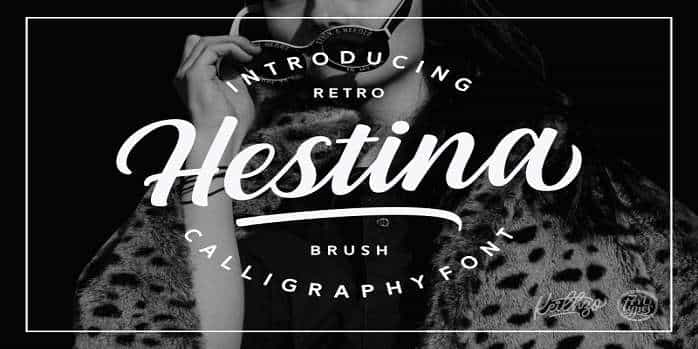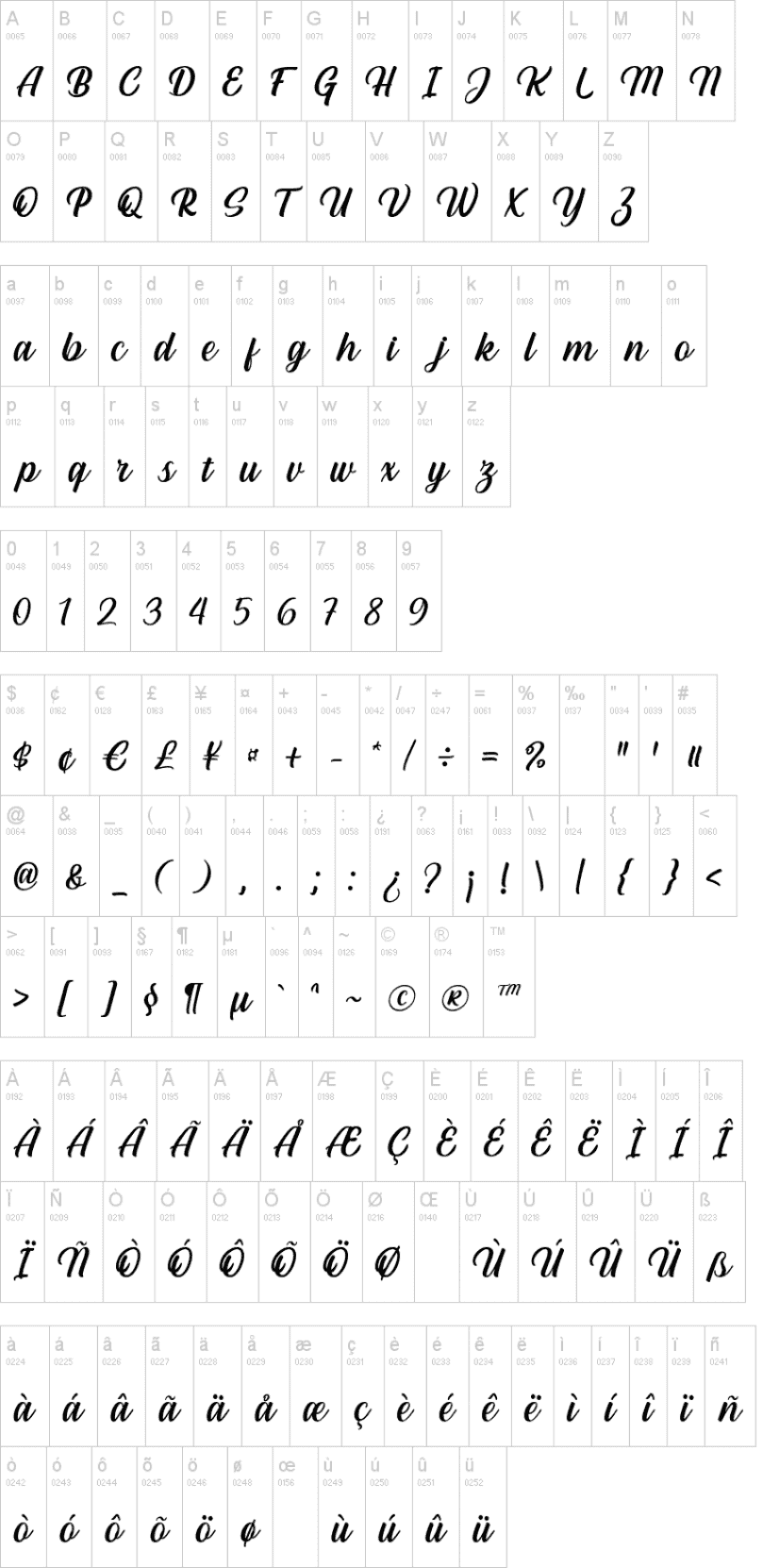
Discover Hestina Font, part of the Calligraphy collection—a versatile and unique font perfect for adding a personal touch to your projects. Download it for free and enjoy crafting designs with style, from invitations to social media posts. This font is available exclusively for personal use, giving you the freedom to create without limits. Unlock your creativity with Hestina Font today!
Hestina is a tasteful Calligraphy font family that has been created by 7NTypes and can be downloaded for free for personal use only. The free version contains all the letters in both the upper and lower cases and a couple of other symbols as well.